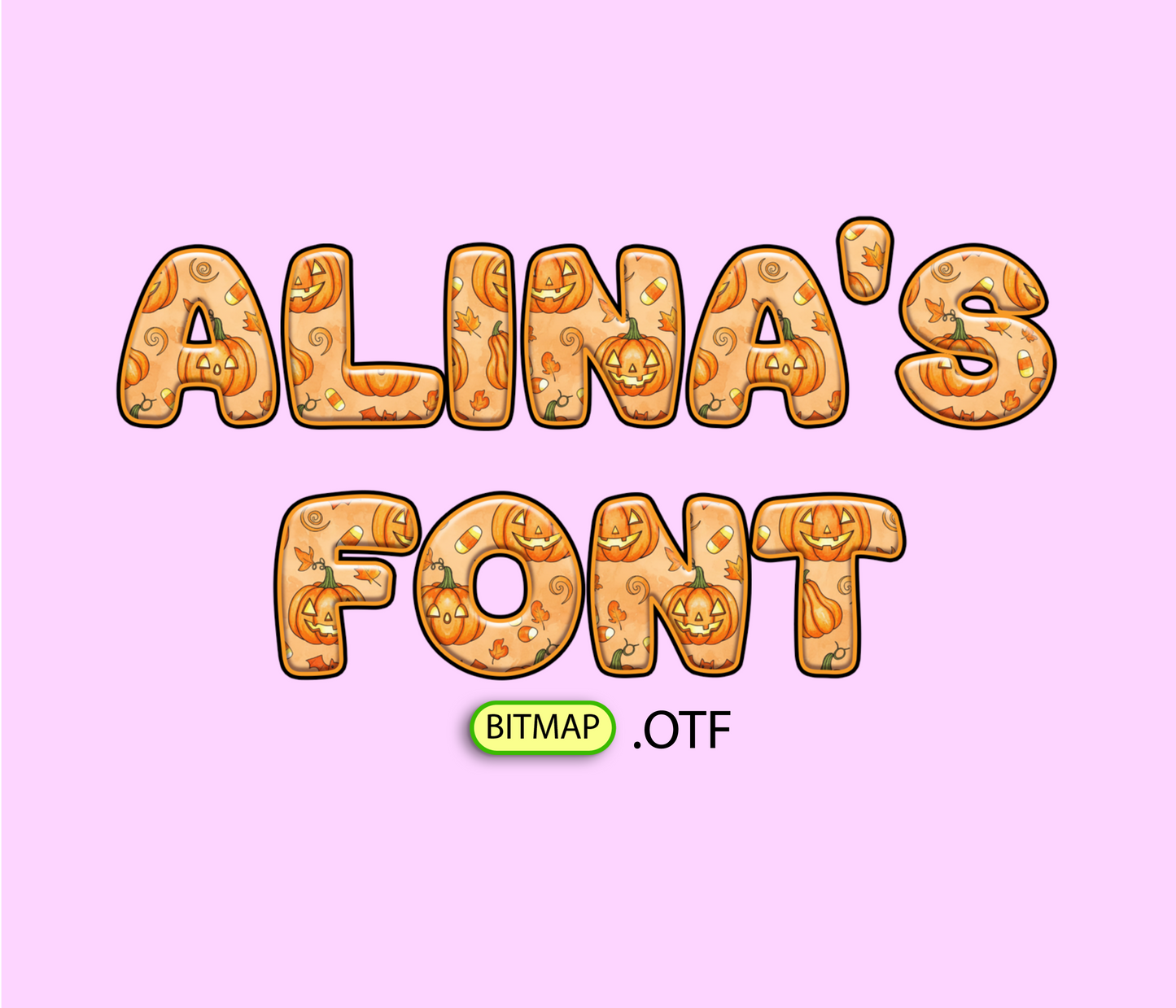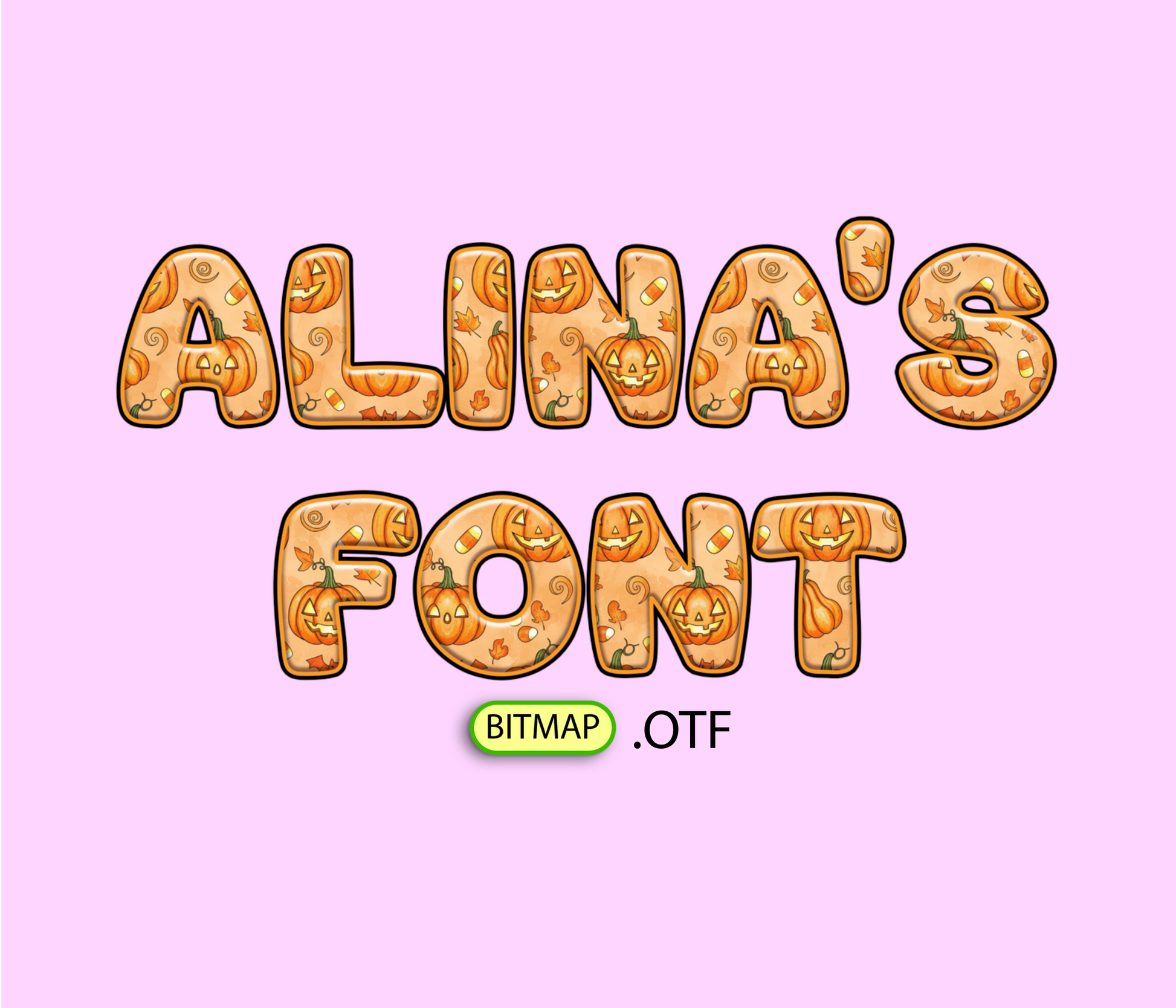
Halloween Pumpkin Patch Pattern Font
Step into the spooky world of autumn celebrations with our Halloween Pumpkin Patch Pattern font, capturing the essence of carved gourds and festive harvests. Perfect for Halloween enthusiasts, seasonal creators, event organizers, and designers, this font brings the playful, eerie spirit of pumpkin festivities to your projects. Create enchanting materials, merchandise, or digital content with the magical energy of jack-o'-lantern celebrations.
Our Halloween Pumpkin Patch Pattern font features whimsical, carved lines and gourd-inspired characters reflecting the world of autumn magic. Ideal for:
Our font pays tribute to the iconic world of Halloween festivities, empowering your designs with its playful and spooky spirit. Whether crafting promotional materials, designing merchandise, or adding a seasonal touch to personal projects, this font communicates the magical essence of pumpkin patch celebrations. Ready to inject autumn magic into your creations? This font is your key to exciting, impactful design.